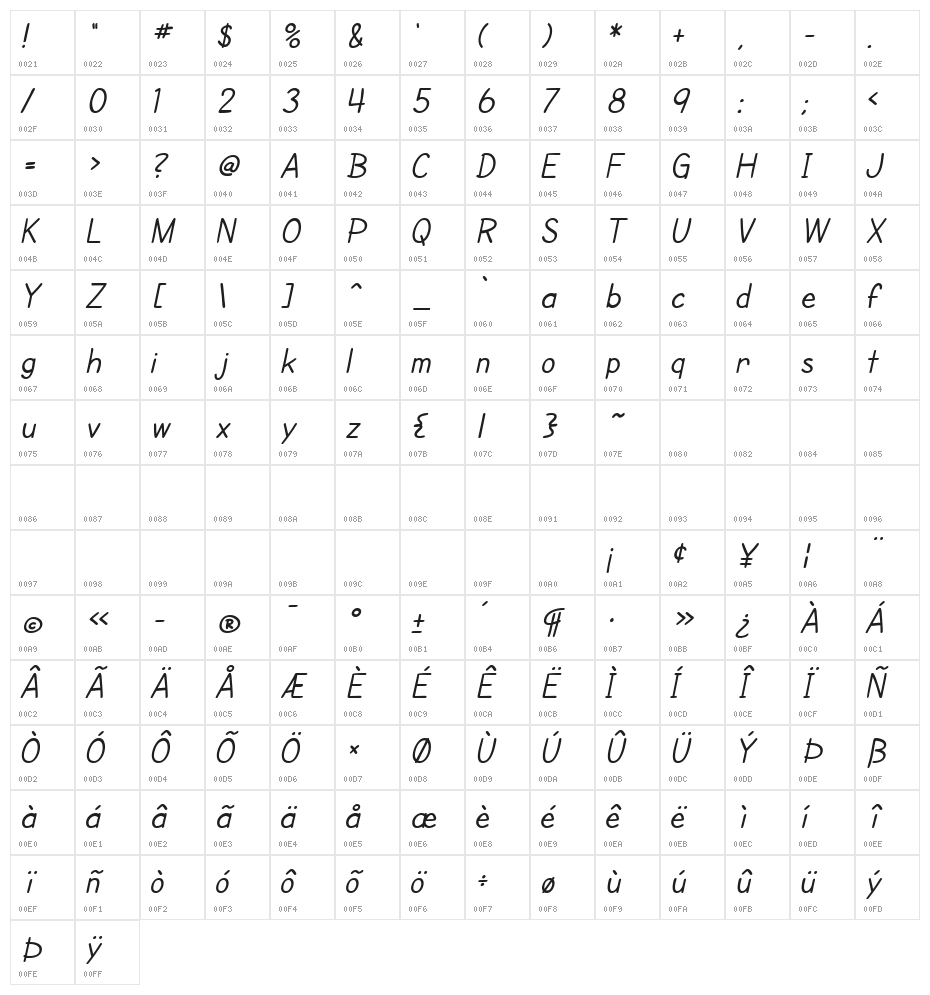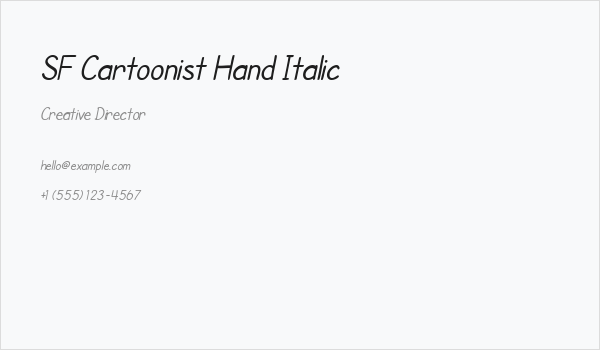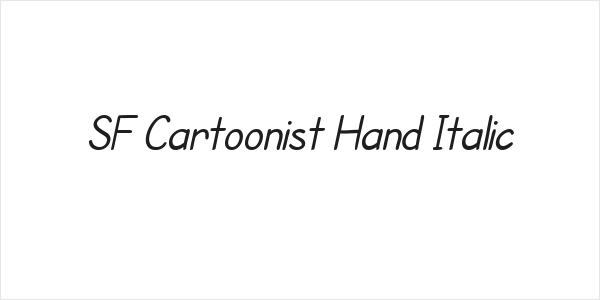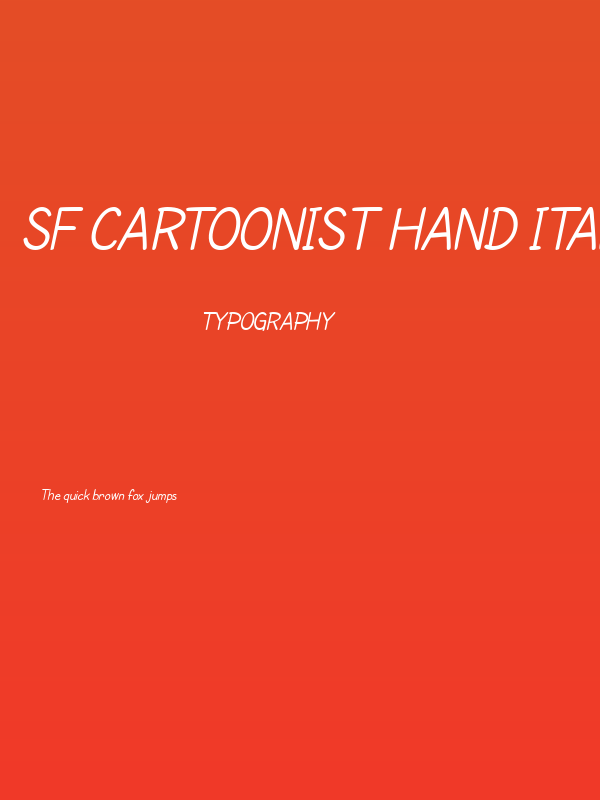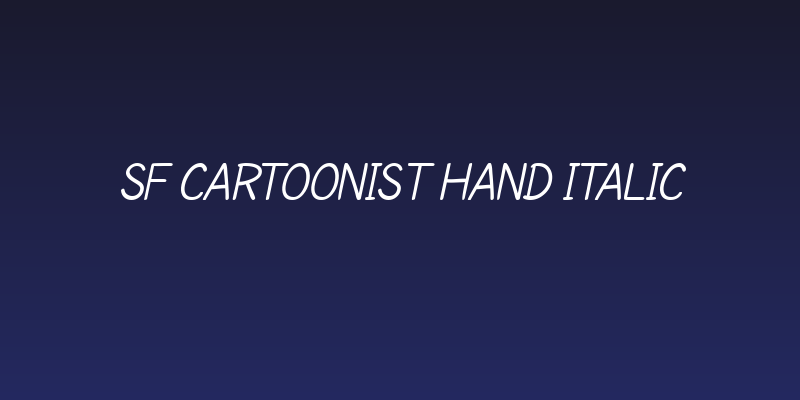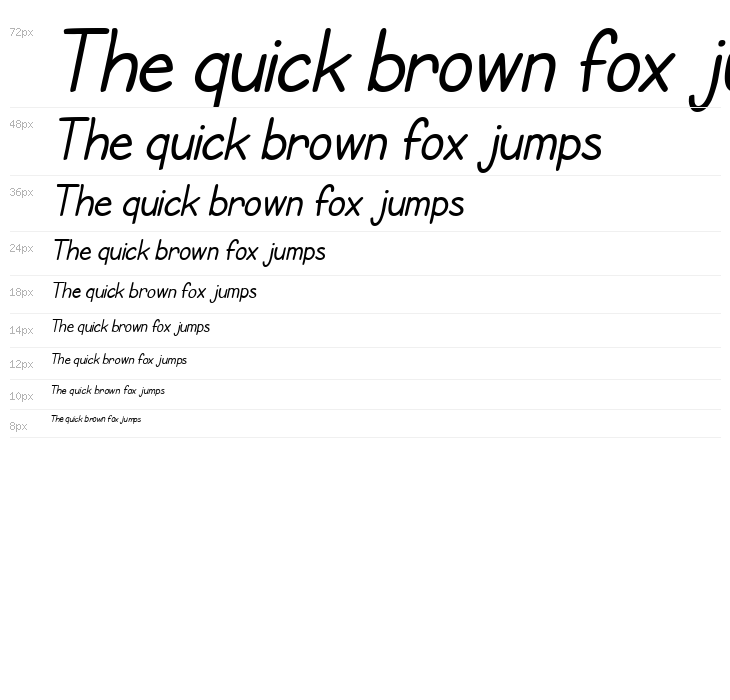
SF Cartoonist Hand Italic Font
SF Cartoonist Hand Italic Description
This playful and whimsical font features a handwritten style with a slight slant, giving it an informal and friendly appearance. The characters are rounded and smooth, with a consistent stroke width that maintains readability while adding a touch of personality. The font includes both uppercase and lowercase letters, numerals, and a variety of special characters, making it versatile for different design needs. Its casual and approachable look is perfect for projects that require a personal touch.
| Proposed Projects | Ideal for comic strips, children's books, greeting cards, and informal branding. |